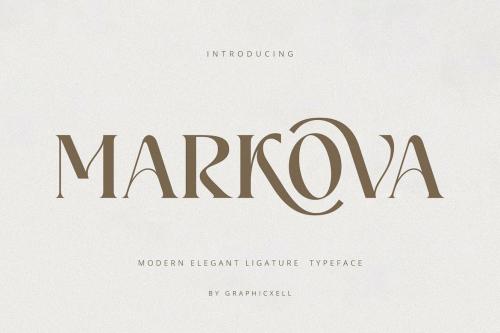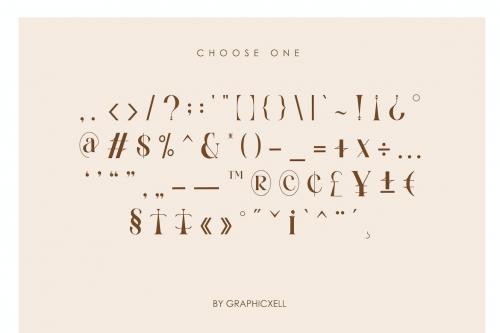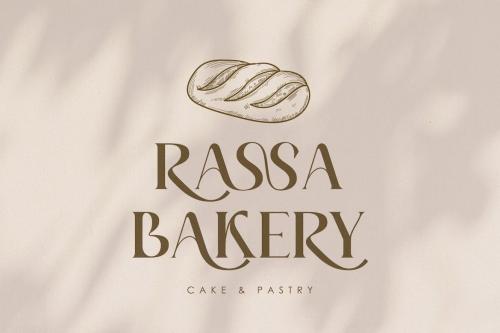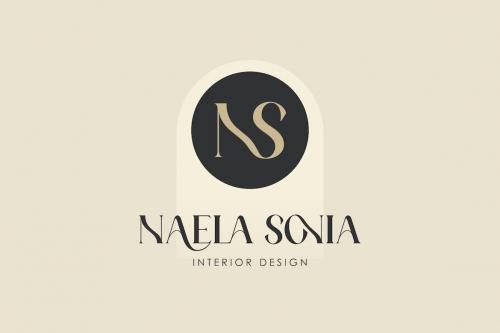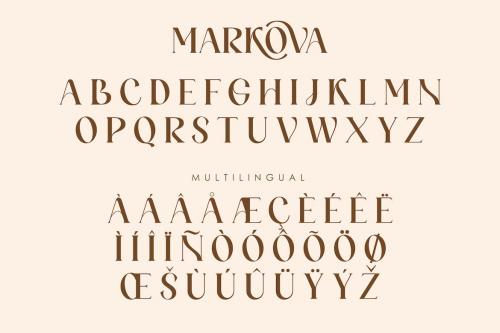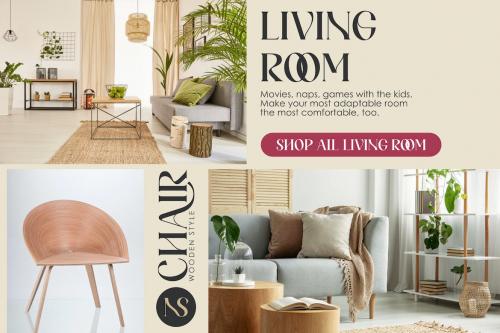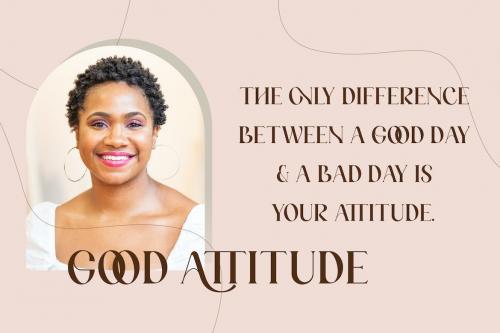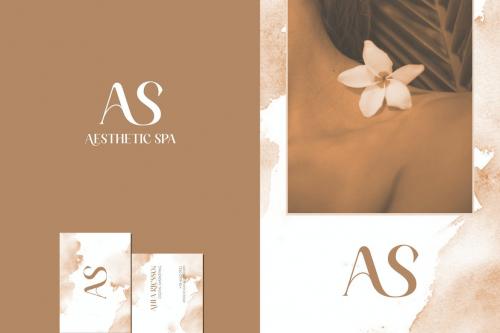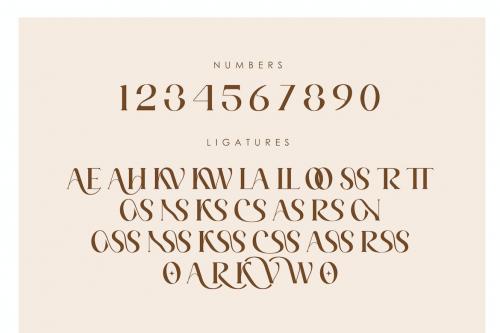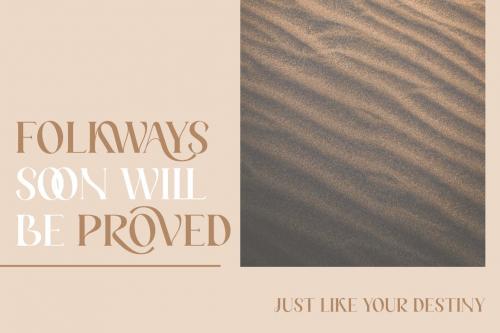
Markova Serif Font
**Markova Serif Font** inspired by the famous minimalist logo perfect for the purposes of designing templates, brochures, videos, advertising branding, logos and more.
+ Ligatures
+ International Accent